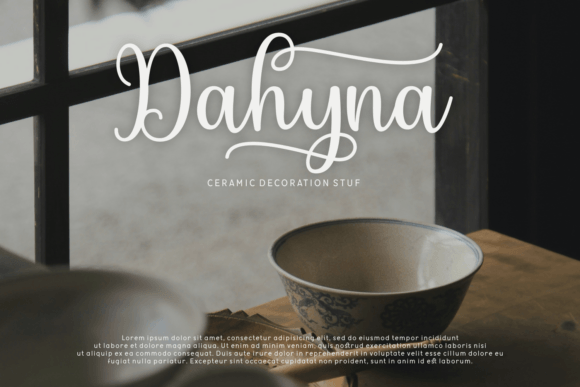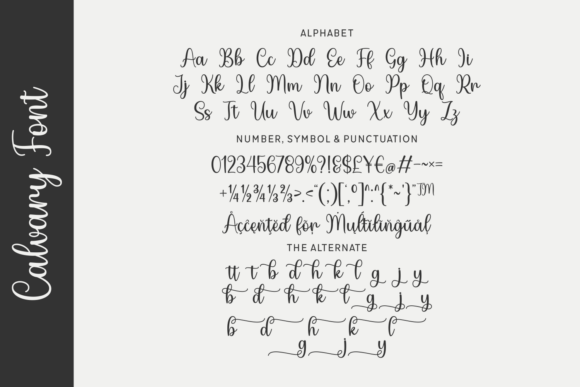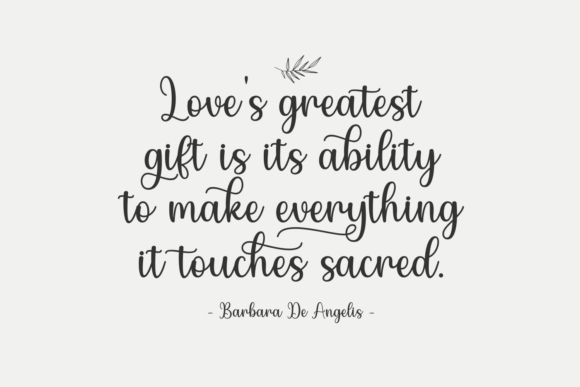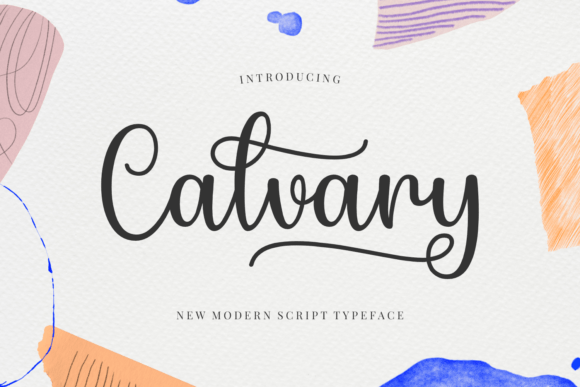
Discover the Elegance of Calvary Font: Elevate Your Designs with Style
In the world of typography, fonts play a crucial role in conveying messages, expressing emotions, and creating lasting impressions. For designers and crafters, finding the perfect font can be a daunting task, but with Calvary Font, you’re in for a treat. This beautiful script font is designed to add a touch of elegance and sophistication to your designs, making it an excellent choice for a wide range of projects.
What Makes Calvary Font Stand Out?
Calvary Font is a stunning script font that boasts elegant swashes, clean lines, and smooth curves. Its unique blend of classic and modern elements makes it perfect for adding a stylish touch to your designs. The swashes give it a distinctive and artistic flair, setting it apart from other fonts while maintaining excellent readability.
Key Features of Calvary Font
- Elegant Swashes: The swashes in Calvary Font add a touch of sophistication and elegance, making it ideal for designs that require a high level of refinement.
- Clean Lines and Smooth Curves: The font’s clean lines and smooth curves ensure that it remains easy to read, even in smaller sizes.
- Unique and Artistic Flair: The swashes give Calvary Font a unique and artistic touch, making it perfect for designers who want to add a creative spin to their work.
- Excellent Readability: Despite its elegant and artistic features, Calvary Font remains easy to read, making it suitable for a wide range of applications.
Use Cases for Calvary Font
Calvary Font is an incredibly versatile font that can be used in various design projects, including:
- Logos and Branding: The elegant swashes and clean lines make Calvary Font an excellent choice for logos and branding materials that require a touch of sophistication.
- Wedding and Event Invitations: The font’s artistic flair and excellent readability make it perfect for wedding and event invitations that need to make a lasting impression.
- Packaging and Product Design: Calvary Font can add a stylish touch to packaging and product design, making your products stand out on store shelves.
- Advertising and Marketing Materials: The font’s unique blend of classic and modern elements makes it an excellent choice for advertising and marketing materials that require a high level of creativity.
Tips for Using Calvary Font Effectively
To get the most out of Calvary Font, here are some tips to keep in mind:
- Use it Sparingly: While Calvary Font is elegant and sophisticated, it’s essential to use it sparingly to avoid overwhelming your design.
- Pair it with Other Fonts: Experiment with pairing Calvary Font with other fonts to create a unique and visually appealing combination.
- Adjust the Size and Color: Adjust the size and color of Calvary Font to create visual hierarchy and make it stand out in your design.
Calvary Font is a beautiful script font that can elevate your designs with its elegant swashes, clean lines, and smooth curves. Its unique blend of classic and modern elements makes it perfect for a wide range of projects, from logos and branding to wedding invitations and packaging design. With its excellent readability and artistic flair, Calvary Font is an excellent choice for designers and crafters who want to add a touch of sophistication and style to their work.